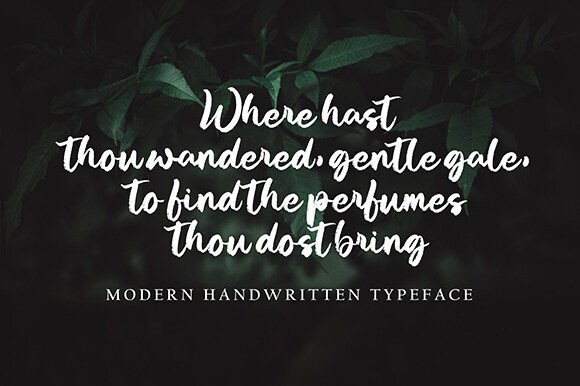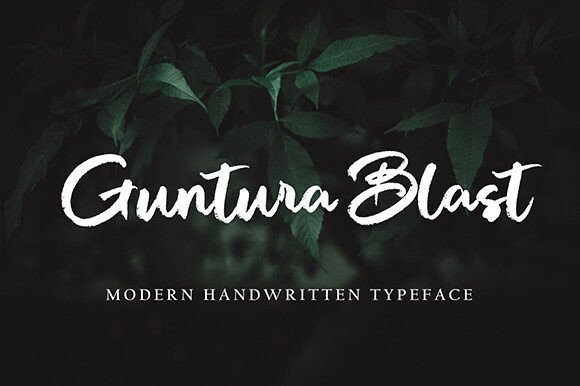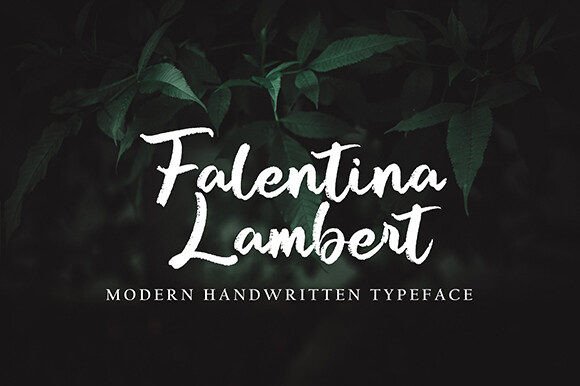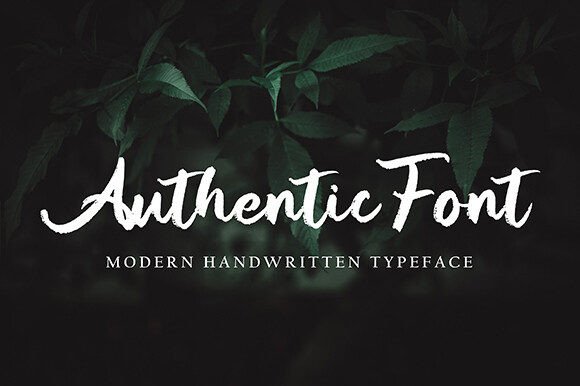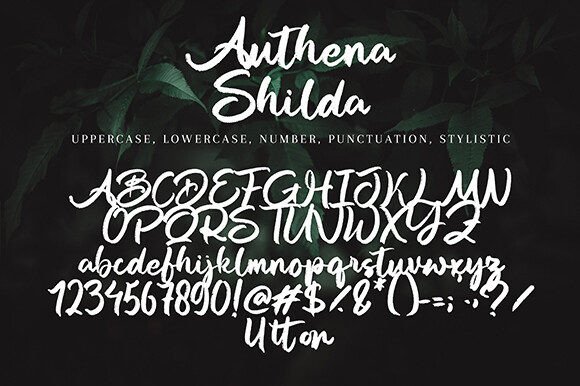
Introducing Autena Shilda Font: Elevate Your Designs with Elegance
Are you a designer or crafter looking for a font that exudes style and sophistication? Look no further than Autena Shilda Font. This stunning script font is perfect for adding a touch of elegance to your designs, making it ideal for wedding invitations, thank you cards, quotes, greeting cards, logos, business cards, and more.
What Makes Autena Shilda Font So Special?
Autena Shilda Font is a beautifully crafted script font that boasts a unique and stylish aesthetic. Its elegant strokes and flowing curves make it perfect for designs that require a personal and sophisticated touch. Whether you’re creating wedding invitations, branding materials, or social media graphics, Autena Shilda Font is sure to impress.
Wedding planners, event coordinators, and designers will love Autena Shilda Font for its romantic and whimsical feel. Use it to create stunning wedding invitations, save-the-date cards, and event branding materials that will leave a lasting impression on your guests. The font’s elegant script style is sure to add a touch of sophistication to any wedding or event design.
Versatile and Easy to Use
Autena Shilda Font is incredibly versatile and can be used for a wide range of design projects. Its clean and legible style makes it perfect for body text, while its elegant strokes make it ideal for headings and titles. The font is also easy to use and can be installed on your computer or used online, making it a convenient choice for designers and crafters.
Key Features of Autena Shilda Font
• Stylish and elegant script font: Autena Shilda Font features a unique and sophisticated script style that’s perfect for designs that require a personal touch.
• Perfect for wedding and event designs: The font’s romantic and whimsical feel makes it ideal for wedding invitations, save-the-date cards, and event branding materials.
• Versatile and easy to use: Autena Shilda Font can be used for a wide range of design projects and is easy to install and use.
• Clean and legible: The font’s clean and legible style makes it perfect for body text, while its elegant strokes make it ideal for headings and titles.
Tips and Tricks for Getting the Most Out of Autena Shilda Font
• Pair it with a sans-serif font: Autena Shilda Font pairs perfectly with sans-serif fonts, such as Arial or Helvetica, for a clean and modern look.
• Use it for headings and titles: The font’s elegant strokes make it ideal for headings and titles, adding a touch of sophistication to your designs.
• Experiment with different colors: Autena Shilda Font looks stunning in a range of colors, from classic black and white to bold and bright hues.
Font Name Autena Shilda Font
Author Pineungtype & Missinklab
Autena Shilda Font is a stylish and incredibly elegant script font that’s perfect for designers and crafters looking to add a touch of sophistication to their designs. With its unique and stylish aesthetic, versatility, and ease of use, Autena Shilda Font is sure to become a go-to font for a wide range of design projects. So why wait? Download Autena Shilda Font today and elevate your designs with elegance.